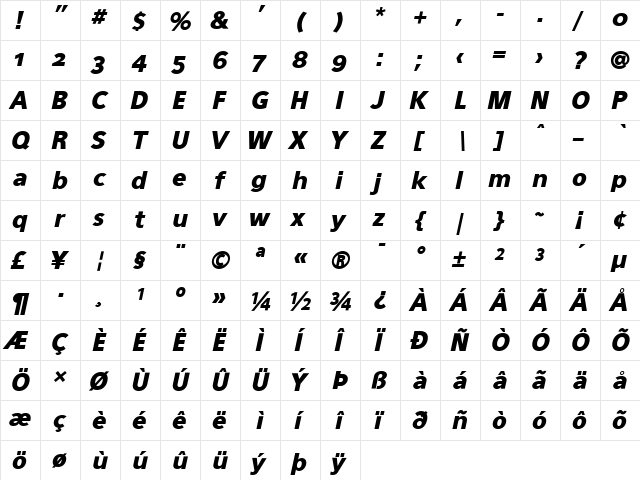
Eau Sans Black Old-styled Figures Oblique
| Foundry | YOFonts |
| Designer | Yamaoka Yasuhiro |
Design Context for Eau Typeface
Eau is a composed and adaptable typeface that performs quietly and consistently across a wide range of design contexts. Its italic angle brings a sense of urgency and motion to the letterforms.